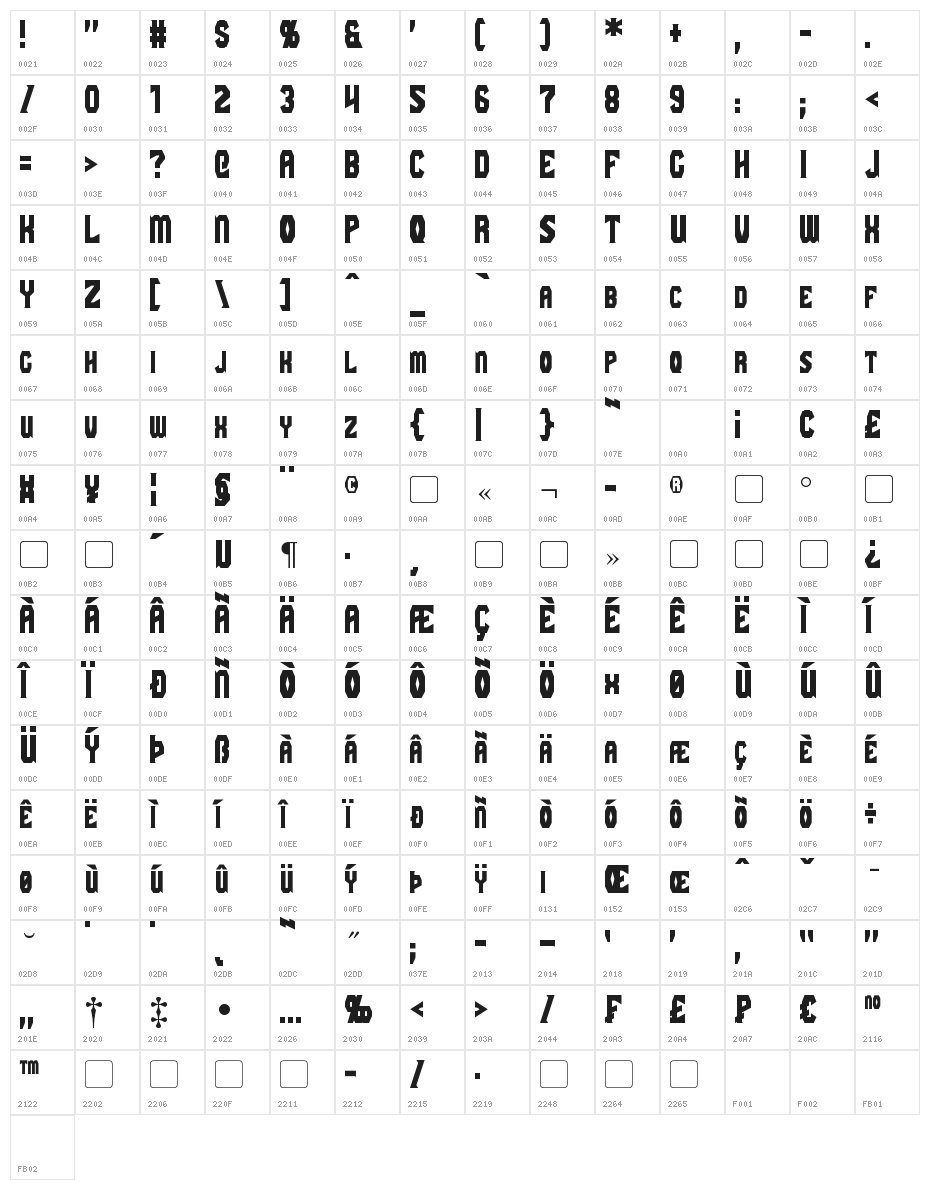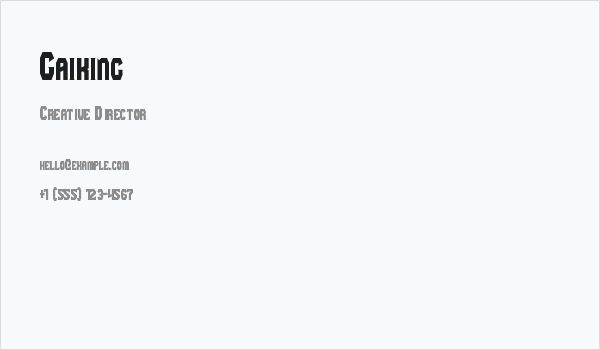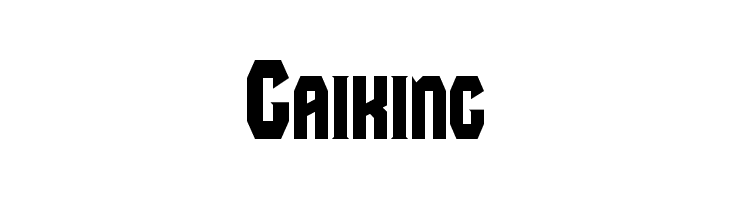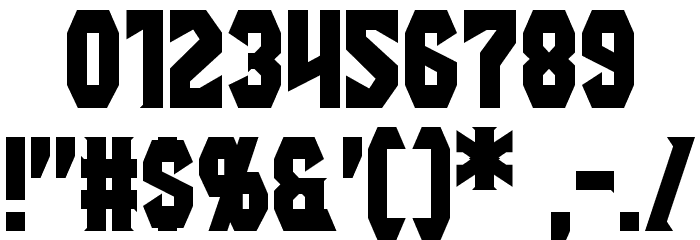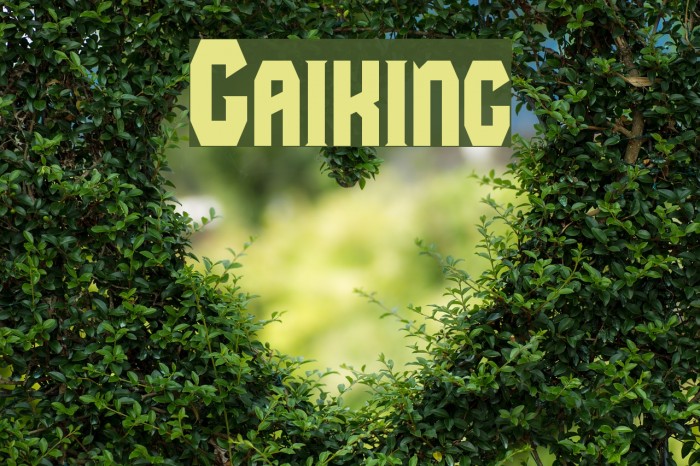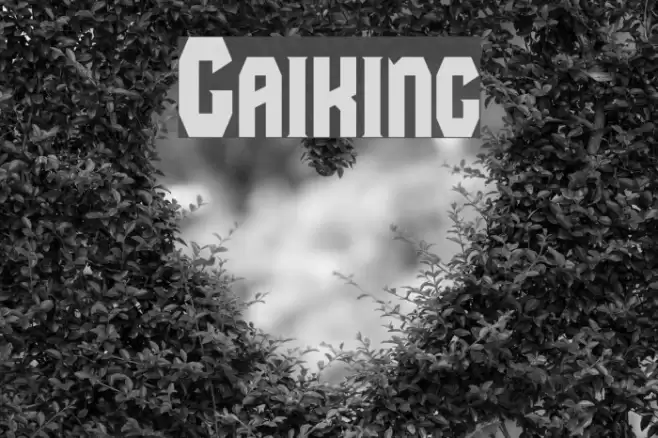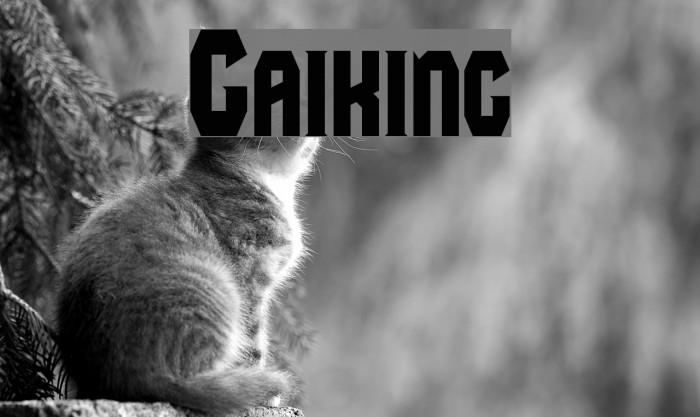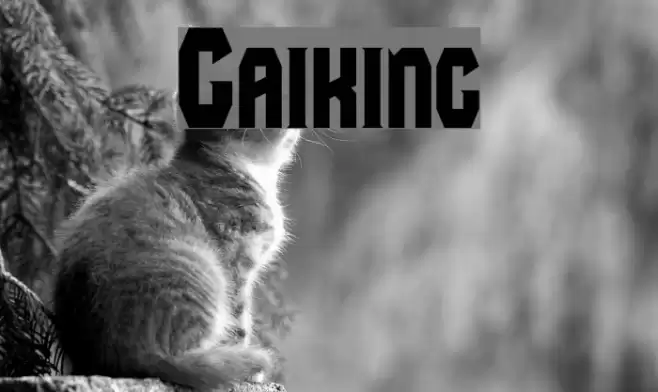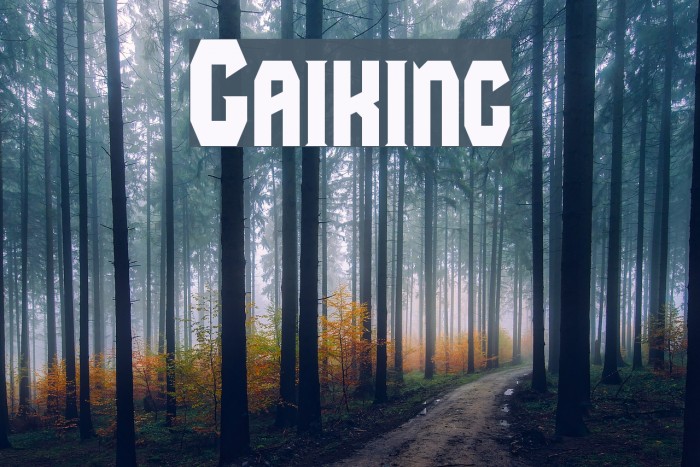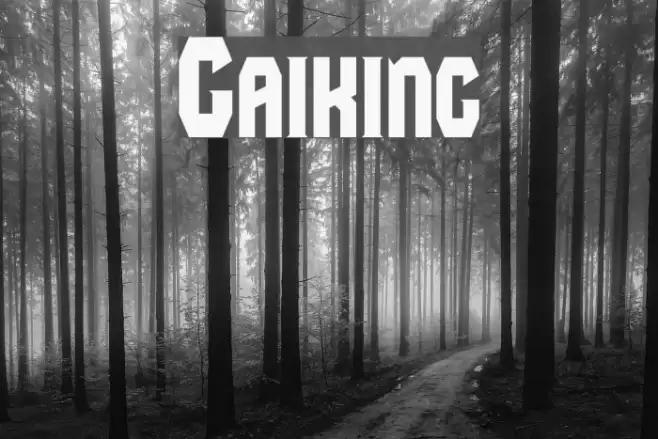
Gaiking Font
| おすすめプロジェクト | Ideal for use in video game titles, movie posters, branding for tech companies, or any project needing a modern, industrial look. |